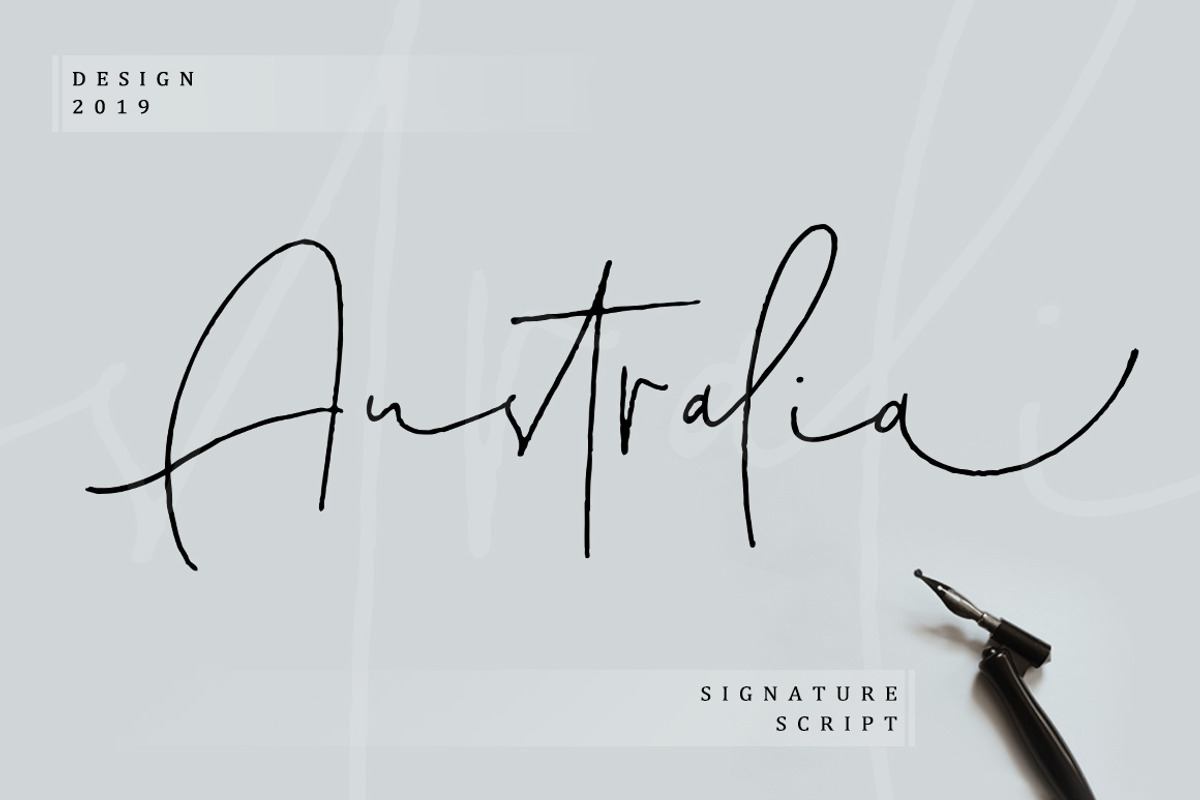
Australia Signature Script Free Download
Australia Signature Script Font Free Download
Please note, to use this font for commercial purposes, you must purchase the full version. Australia Signature is an elegant and stylish script font that adds a personal, handwritten touch to your designs. With its smooth, flowing letterforms, this font is perfect for creating logos, invitations, branding, and creative projects that require a sophisticated, signature style. Whether you're designing for a luxury brand, a wedding event, or a high-end product, Australia Signature brings beauty and refinement to your work. Test it out and enjoy free download access for personal use. Experience the graceful charm of Australia Signature Script Font Free Download before purchasing the commercial license. Add an elegant, signature-style flair to your designs with Australia Signature.